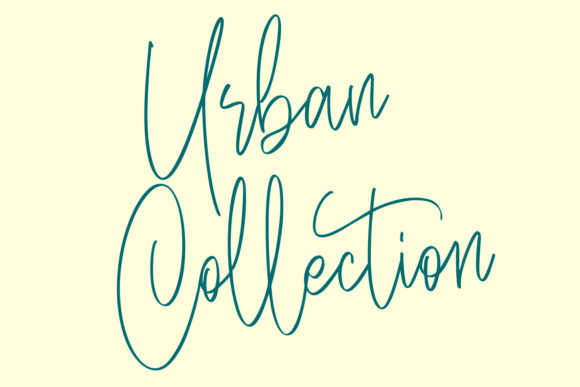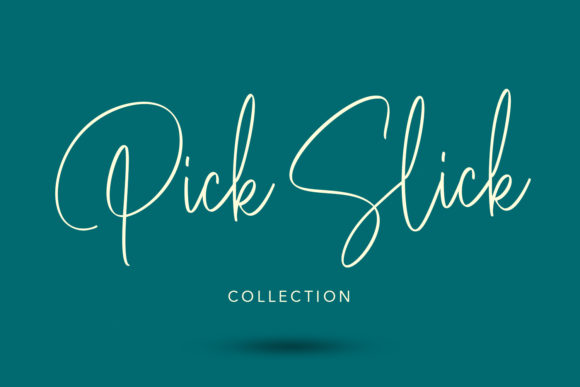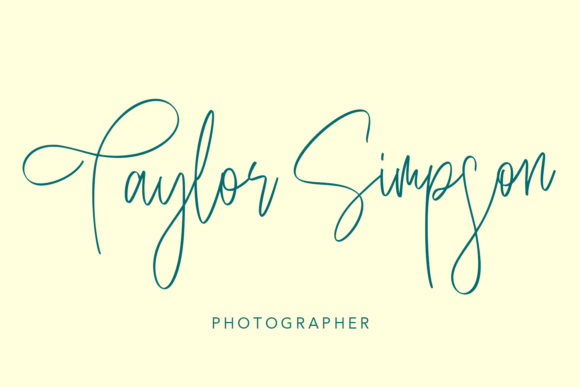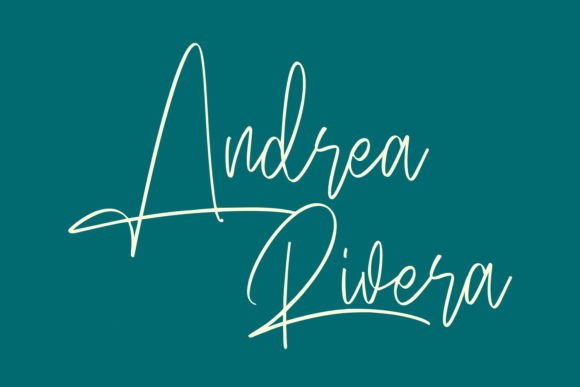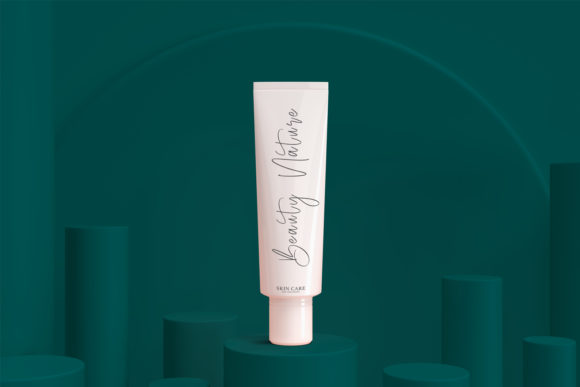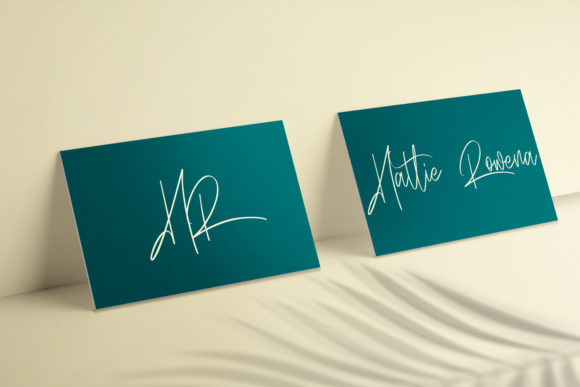
Introduction to Red Chute Font
As a designer, there’s nothing quite like the thrill of bringing a creative project to life. Whether it’s a branding campaign, a wedding invitation, or a personal logo, the right font can make all the difference. I still remember the moment I discovered the Red Chute Font – its elegant script style and classic calligraphy feel instantly captured my heart.
What I love most about the Red Chute Font is its versatility. This stunning font is not just a pretty face; it’s a powerful design resource that can elevate any project to the highest level. With its smooth, flowing lines and beautiful letterforms, it’s the perfect choice for designers who want to add a touch of sophistication and elegance to their work.
Key Features of Red Chute Font
- High-quality design resource for creative projects, perfect for digital and print use.
- Features a unique, eye-catching design that is sure to make your project stand out.
- Perfect for use in a wide range of creative projects, from logos and branding to graphics and typography.
Honest Review: Red Chute Font
I recently had the chance to work with the Red Chute Font, and I must say it’s been a game-changer for my design projects. This font is perfect for anyone looking to add a touch of elegance and sophistication to their creative project.
- High-quality design: The Red Chute Font is incredibly well-designed, with clean lines and a sophisticated feel that’s perfect for any high-end project.
⚠️ Limitations:
- Only 2 weights: While the font is high-quality, it’s limited to only two weights, which might not be ideal for designers who need a more extensive range of options.
- Not ideal for bold text: The font’s elegant feel makes it less suitable for bold or loud text, which might be a limitation for some designers.
Overall, I’m really impressed with the Red Chute Font. It’s a fantastic resource for designers who want to create high-quality, elegant designs without breaking the bank. With a few minor limitations, I’d highly recommend giving it a try.
Tips for Getting the Most Out of Red Chute Font
To get the most out of the Red Chute Font, use it in conjunction with other design elements, such as transparent backgrounds and high-quality images. Experiment with different font sizes and styles to create a unique and eye-catching design.
Common Use Cases for Red Chute Font
The Red Chute Font is perfect for a wide range of applications, including: logo design, branding, marketing materials, and social media graphics. Its unique style and versatility make it a valuable addition to any design project.